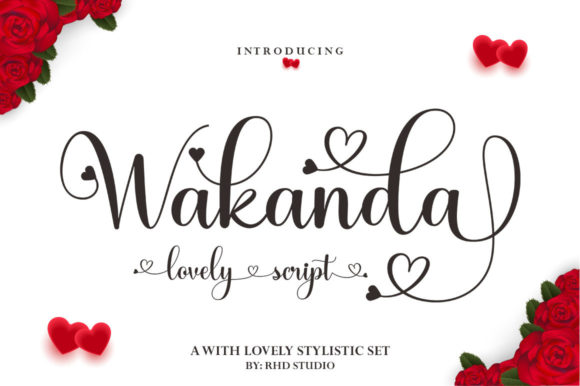
Introducing Wakanda Script Font, the perfect font for your dreamy wedding welcome sign! Created by studiorhd, this script font is not just any ordinary typeface, it is a captivating work of art that will leave you breathless.
With its charming and playful characters, Wakanda Script Font takes your words and transforms them into a dance along the baseline. Each letter seems to twirl and sway, adding a touch of elegance and romance to any project. Whether you're designing your wedding invitations, crafting a personalized love note, or creating stunning signage for your special day, this font will make your words come alive.
But what sets Wakanda Script Font apart from other fonts? Its PUA encoding allows you to effortlessly access all of the intricate glyphs and enchanting swashes. These special design elements add a whimsical touch to your typography, making each word a true work of art. You'll have endless possibilities to create unique and captivating designs that will leave a lasting impression on your audience.
Imagine your wedding welcome sign adorned with Wakanda Script Font, greeting your guests with a touch of enchantment. The delicate curves and graceful strokes of this font will instantly capture their attention, setting the tone for a magical celebration. Your guests won't be able to resist snapping photos and sharing their excitement on social media, creating an unforgettable experience for everyone involved.
Not only does Wakanda Script Font bring beauty to your designs, but it also evokes powerful emotions. The elegance and sophistication it exudes will transport you to a world of everlasting love and romance. Each stroke of the pen tells a story, allowing you to express your deepest emotions with every word written.
Don't settle for ordinary fonts when it comes to your special day. Wakanda Script Font is the epitome of elegance, grace, and charm, making it the perfect choice for any wedding-related project. Let this font be the voice that captures the essence of your love story and leaves a lasting impression on your guests.